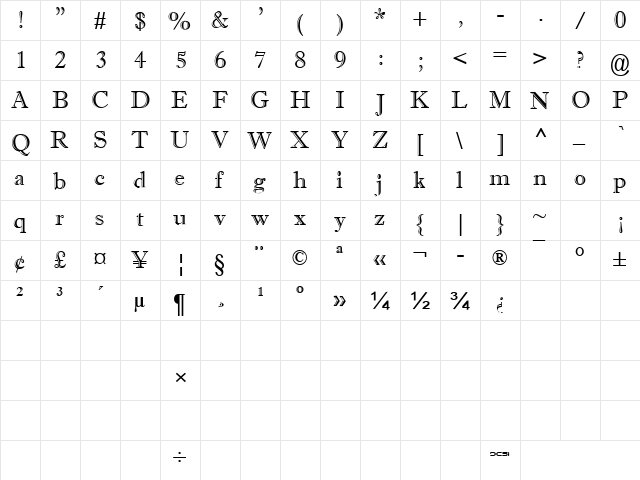
FFX Times Engraved Regular
Design Context for FFX Times Engraved Typeface
FFX Times Engraved is built around its visual character rather than neutral utility — its distinctive forms are designed to make an impression at display sizes.
Font Pairing: Pair with a clean neutral sans-serif for body copy to let FFX Times Engraved's character lead without overwhelming the composition.
Pro Tip: Use FFX Times Engraved exclusively at display sizes — it was designed to be seen, not read at length. Let a neutral companion handle body copy.